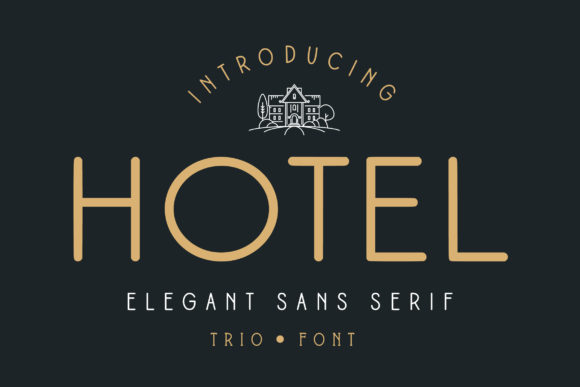
**Introducing Hotel Font: The Epitome of Elegance and Functionality for Blog Writing**
In the realm of digital expression, where words dance across screens to captivate audiences, Hotel Font emerges as a masterpiece, a font family that transcends the ordinary and elevates your blog's narrative to new heights. With its graceful curves and impeccable balance, Hotel Font is not just a collection of letters; it's a gateway to a world of refined elegance and captivating storytelling.
**Sans Serif Sophistication for a Mesmerizing Reading Experience**
Adorned with the allure of a sans serif design, Hotel Font exudes a contemporary charm that effortlessly draws readers into your blog's embrace. Its clean lines and open letterforms create a visual symphony that invites the eyes to linger, enhancing readability and comprehension. Whether you're crafting insightful articles, sharing personal anecdotes, or delving into the depths of knowledge, Hotel Font provides the perfect backdrop for your literary creations.
**A Font Family Tailored to Blog Writing's Unique Nuances**
Hotel Font is not merely a collection of characters; it's a comprehensive font family meticulously crafted to meet the diverse demands of blog writing. Whether you're seeking a touch of formality for your business-oriented blog or a whimsical flair for your travelogue, Hotel Font seamlessly adapts to your vision. Its versatility extends from the crispness of the sans serif to the timeless beauty of the serif, ensuring a harmonious blend of sophistication and approachability.
**Elevate Your Blog's Visual Appeal: Stand Out from the Digital Crowd**
In a sea of digital content, it's crucial to distinguish your blog from the mundane and capture the attention of your readers. Hotel Font serves as your secret weapon in this competitive landscape. Its visually striking design commands attention, transforming your blog posts into visually captivating masterpieces. Embrace the power of Hotel Font and watch as your blog blossoms into a visually stunning destination, leaving a lasting impression on your audience.
**Unleash Your Creativity: A Font Family That Inspires**
With Hotel Font at your disposal, the boundaries of creativity dissolve, and a world of possibilities unfolds. Its versatile nature empowers you to experiment with different styles, tones, and themes, allowing your blog to reflect your unique personality and style. Unleash your inner artist and let Hotel Font be your creative canvas, transforming your blog into a reflection of your passion and vision.
**Hotel Font: The Perfect Companion for Your Blogging Journey**
Join the ranks of discerning bloggers who have discovered the transformative power of Hotel Font. Its elegant design, readability, and versatility make it the ideal choice for those seeking to captivate their readers and leave a lasting impression. Embrace Hotel Font today and embark on a journey of storytelling excellence, where every word carries weight, and every post becomes a masterpiece.